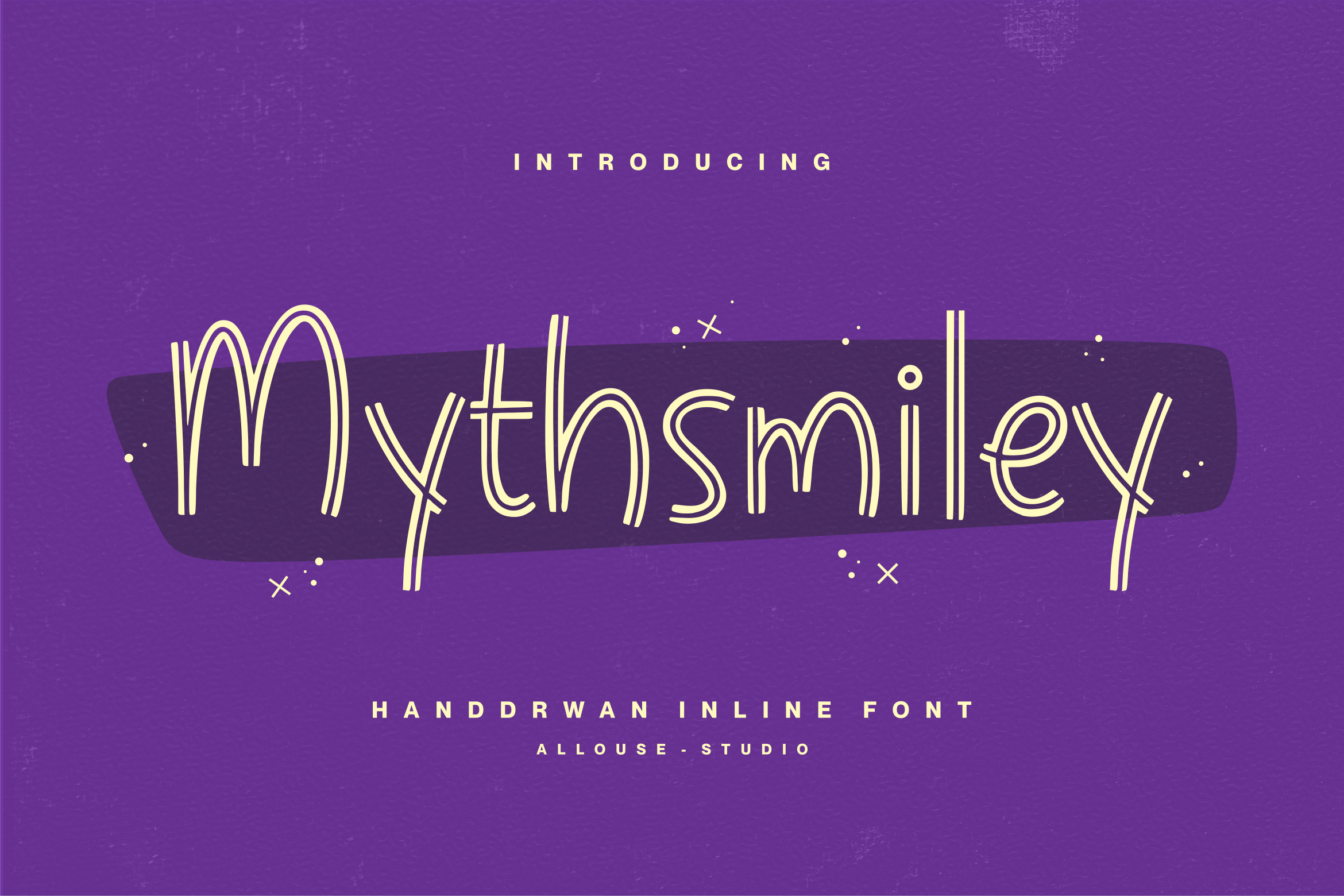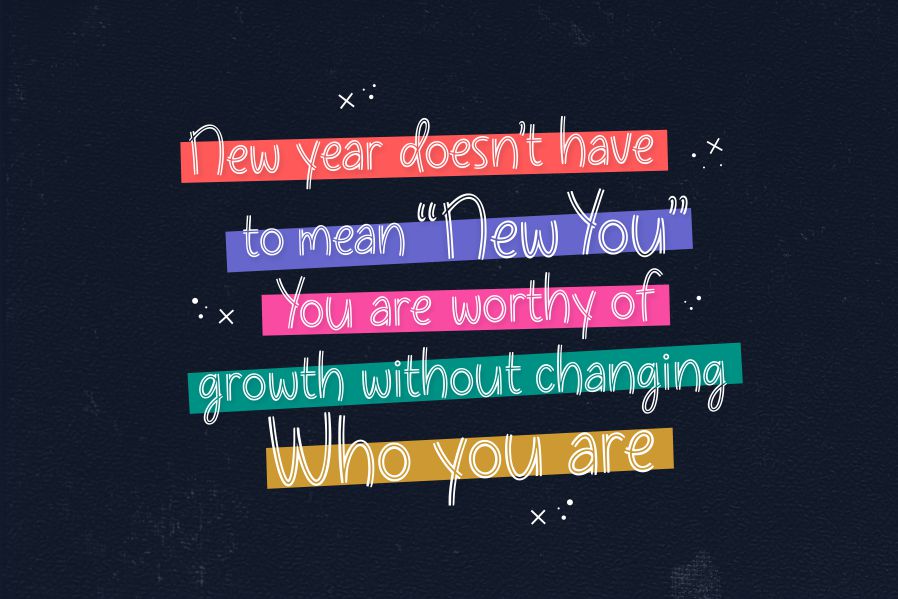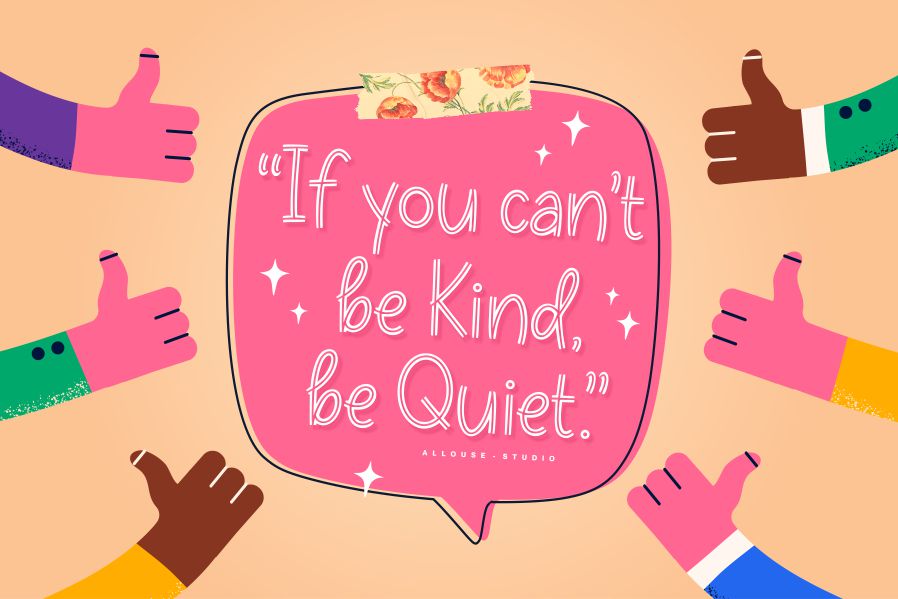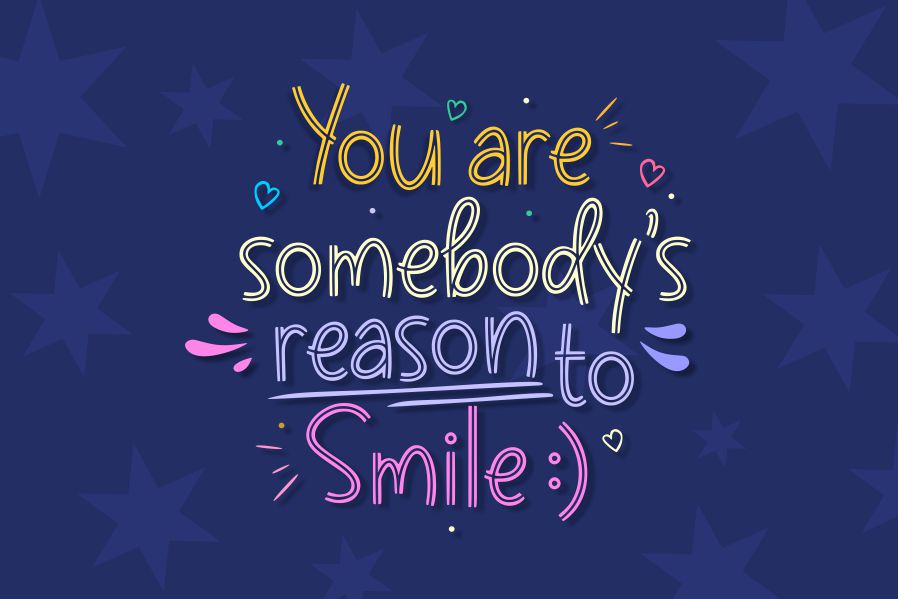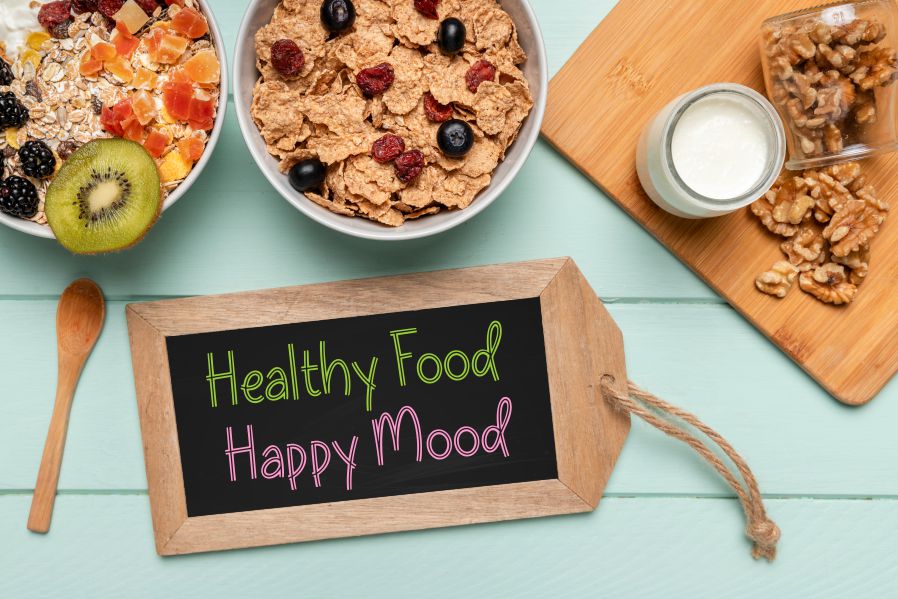
Mythsmiley Font
Mythsmiley Display Font
It’s a cool and neat display font. Whether you use it for cartoon related designs, children games or just any creation that requires a lovely touch, this font will be an amazing choice.